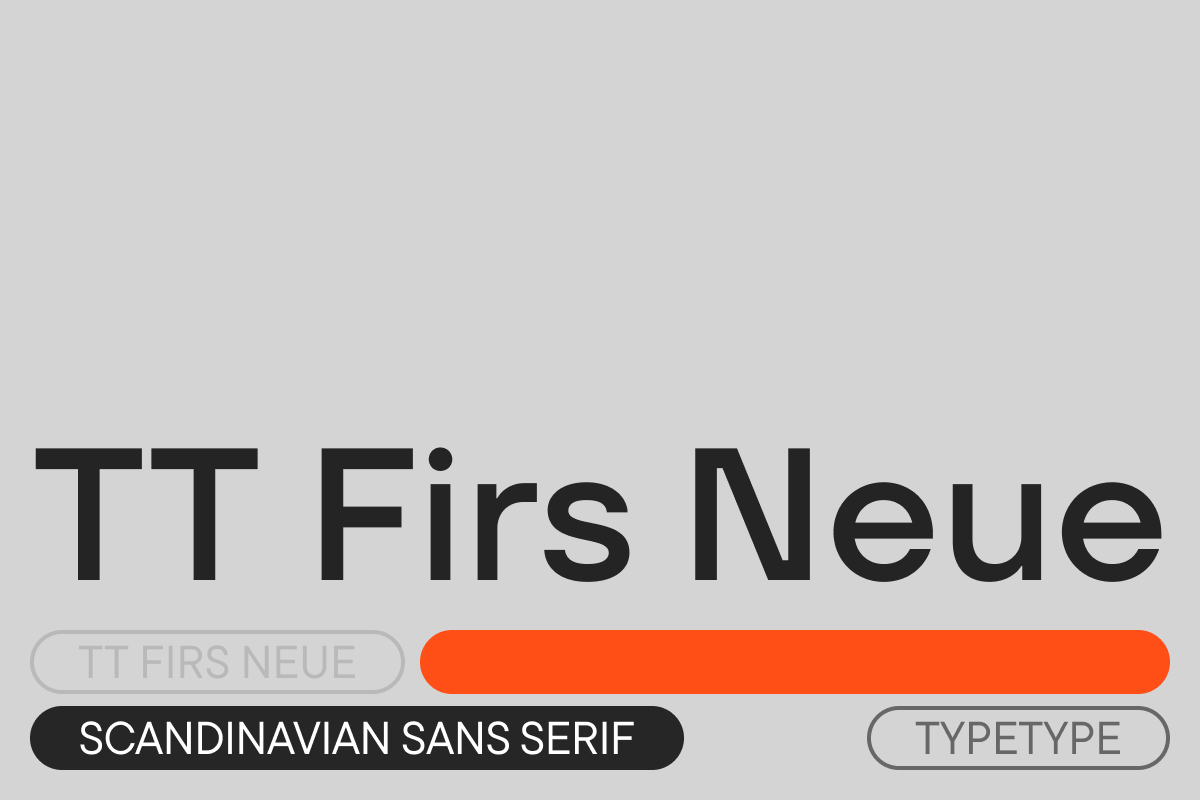
TT Firs Neue DemiBold Italic
TT Firs Neue is a well-balanced Scandinavian sans serif with a distinctively robust Nordic character. It’s a recognizable and appealing font that blends expressive graphic elements with versatile application. TT Firs Neue is a bestselling font that enjoys great popularity. It can be seen in museums, architectural firms, and coffee shops—it fits perfectly with the Scandinavian aesthetic. TT Firs Neue can be used for headlines or text excerpts and is well-suited for branding or web use.